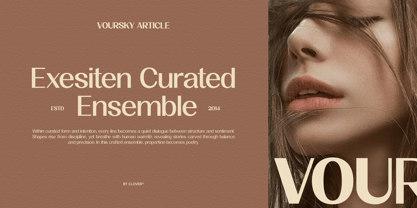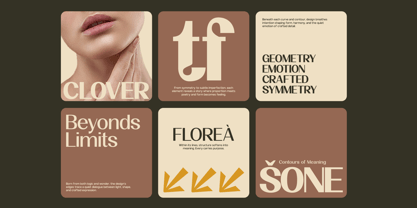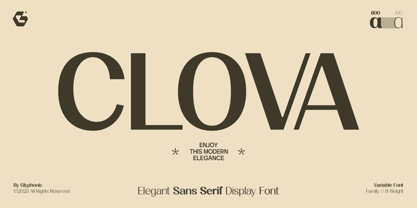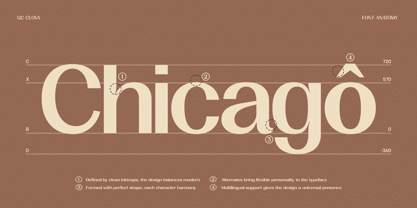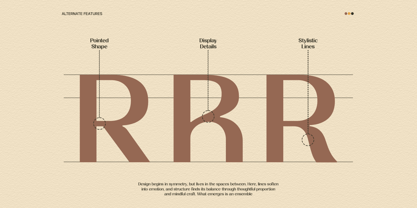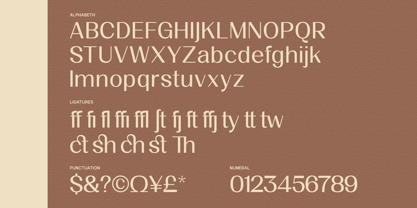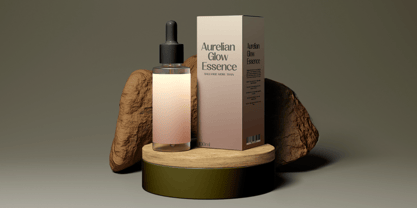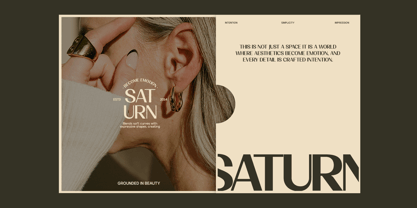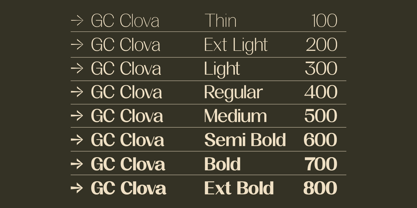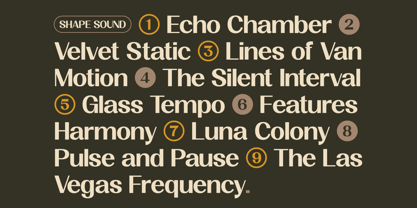
GC Clova
by Onyx Studio
The GC Clova Font Family was designed by Muhammad Hafiizh Solana and published by Onyx Studio. GC Clova contains 8 styles and family package options. More about this family
GC Clova – Elegant Sans Serif Display Font is a refined display typeface designed to deliver elegance, clarity, and modern sophistication. With its smooth geometry and graceful stroke contrast, it offers a confident yet stylish presence that shines across branding, editorial design, packaging, and high-end visual identities. Crafted to maintain simplicity while showcasing expressive details, it brings a polished and contemporary charm to any design project. Precise proportions and distinctive forms make GC Clova both versatile and memorable. Whether used for eye-catching headlines, luxury branding, or minimalistic compositions, this font elevates your typography with a blend of elegance, modernity, and visual harmony. Features: Uppercase & Lowercase Numbers & Punctuation Elegant Display Sans Construction Multilingual Support (170+ Languages) Bring refined elegance, clarity, and modern display sophistication to your design with GC Clova.
Designers: Muhammad Hafiizh Solana
Foundry: Onyx Studio